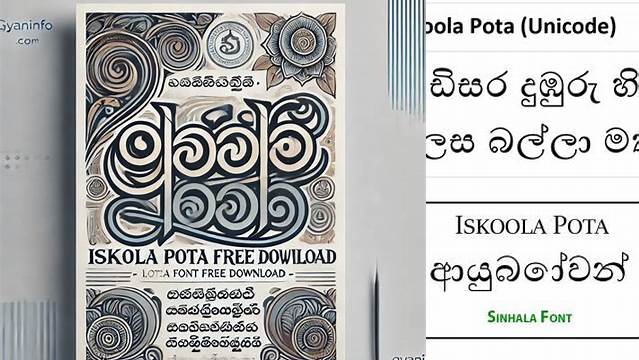
Download Free Sinhala Fonts: Iskoola Pota Edition
Sinhala Fonts: A Quick Overview
Before we jump into Iskoola Pota, let's take a moment to appreciate the beauty and complexity of Sinhala fonts in general. Sinhala, the language spoken by the majority in Sri Lanka, has its own unique script. Using the correct fonts ensures your message is conveyed accurately and with the right cultural context. When working with Sinhala fonts, it's crucial to choose one that is both legible and aesthetically pleasing. This is where fonts like Iskoola Pota shine, offering a blend of tradition and modernity.
Importance of Using Authentic Sinhala Fonts
Using authentic Sinhala fonts is super important for several reasons. Firstly, it shows respect for the language and culture. Imagine reading English text with weird, distorted characters – it just wouldn't feel right, would it? The same goes for Sinhala. Using the right font ensures that the text is readable and conveys the intended meaning without any ambiguity. Secondly, authentic Sinhala fonts are designed to display the complex characters and ligatures of the Sinhala script correctly. This is especially important for academic documents, official publications, and creative projects where accuracy is paramount. Using a poorly designed or incorrect font can lead to misinterpretations and a less professional look. Thirdly, using the right fonts enhances the overall aesthetic appeal of your work. A well-chosen Sinhala font can make your text look elegant, professional, and engaging. Whether you're creating a presentation, designing a website, or writing a report, the right font can make a significant difference in how your message is received. Finally, it is essential for maintaining cultural heritage. The Sinhala script is an integral part of Sri Lankan culture and identity. By using and promoting authentic Sinhala fonts, we help preserve this rich linguistic and cultural heritage for future generations. So, always make sure you're using the right fonts to honor and celebrate the beauty of the Sinhala language.
What is Iskoola Pota?
Iskoola Pota is a widely-used Sinhala font known for its clear, readable, and aesthetically pleasing design. It's often a favorite for educational materials, documents, and general-purpose writing. The name "Iskoola Pota" roughly translates to "School Book" in Sinhala, hinting at its primary use in educational contexts. But don't let the name fool you; it's versatile enough for a wide range of applications.
Key Features and Benefits of Iskoola Pota
So, what makes Iskoola Pota so special? Firstly, its readability is top-notch. The characters are well-defined and easy to distinguish, making it a great choice for long documents and educational materials. Whether you are reading on screen or in print, Iskoola Pota ensures a comfortable reading experience. Secondly, it is designed with a modern aesthetic that blends well with traditional Sinhala script characteristics. This makes it suitable for both formal and informal contexts. Whether you're working on a school project or designing a professional presentation, Iskoola Pota offers a balanced and appealing look. Thirdly, it supports all the necessary Sinhala characters and ligatures, ensuring accurate representation of the language. You won't have to worry about missing characters or incorrect renderings. Iskoola Pota is designed to handle the complexities of the Sinhala script with ease. Furthermore, Iskoola Pota is often available for free, making it accessible to a wide range of users. This is particularly beneficial for students, educators, and anyone working on projects with limited budgets. The availability of Iskoola Pota as a free font helps promote the use of authentic Sinhala script. It is also compatible with most operating systems and software, so you can use it on Windows, macOS, and Linux without any issues. It integrates seamlessly with popular word processors, design tools, and other applications. Finally, many designers and users appreciate its clean and simple design. It doesn't have unnecessary frills or embellishments, which makes it easy to read and visually appealing. Iskoola Pota focuses on clarity and functionality, making it a reliable choice for a variety of projects.
Using Iskoola Pota Effectively
Final Thoughts and Recommendations